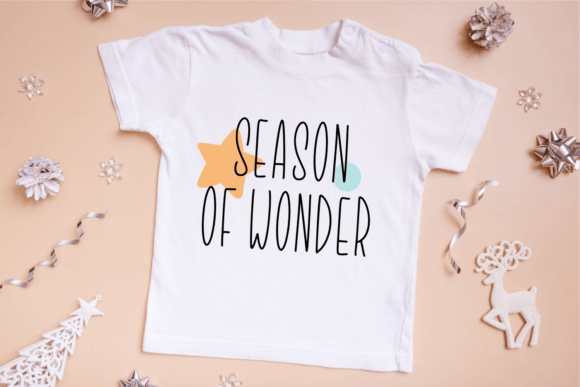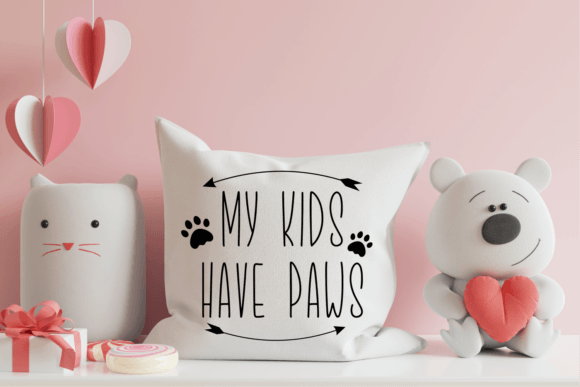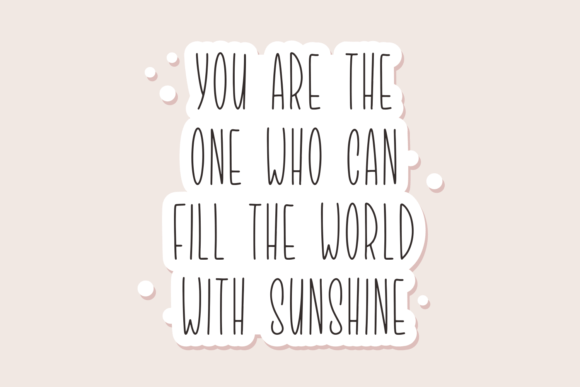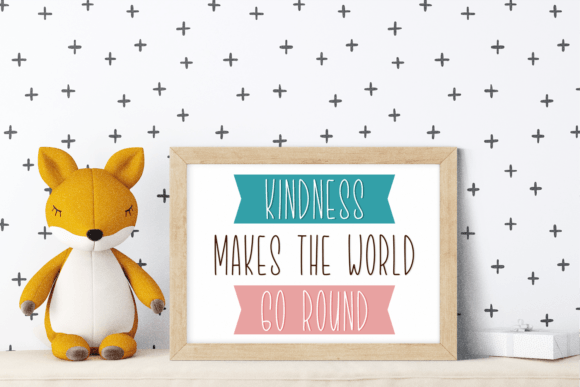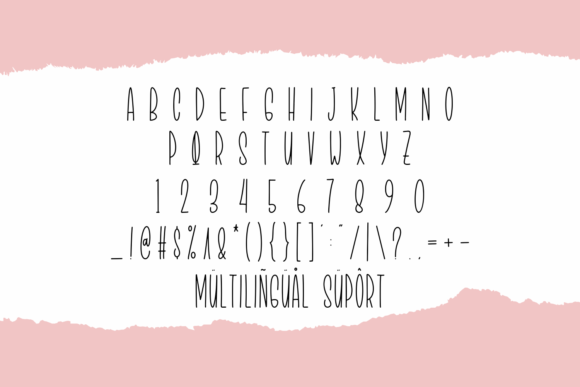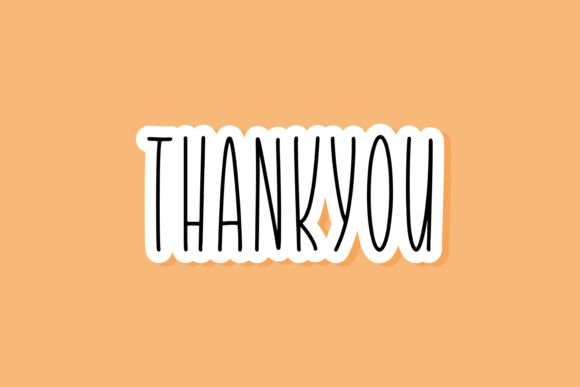
Starkido Font
A Slim, Cute, and Adaptable Handwritten Typeface
Starkido Font is a slim, cute, and adaptable handwritten typeface designed to bring a personalized and charming touch to a wide range of creative projects. Whether you’re designing farmhouse decor, greeting cards, stickers, or social media content, this font ensures your designs have a stylish, approachable feel. With its playful and elegant design, the Starkido Font helps elevate your projects with a unique, handwritten flair that suits both formal and informal occasions.
Perfect for Farmhouse Decor and Crafts
For farmhouse decor and craft projects, the Starkido Font is a wonderful choice. Whether you’re designing wall art, home decor pieces, or DIY crafts, this font adds a charming, welcoming touch to your designs. Its slim handwritten style and clean lines ensure that your home decor projects look elegant yet approachable, bringing a personalized flair to any space. The Starkido Font is perfect for creating quotes or slogans that add character and warmth to your home decor.
Ideal for Greeting Cards and Invitations
For greeting cards and invitations, the Starkido Font adds a playful, cute touch that’s ideal for birthdays, holidays, weddings, or other special occasions. Whether you’re creating thank-you cards, birthday invitations, or holiday greeting cards, this font’s charming and slim design brings a personalized feel to any occasion. Its adaptable nature ensures it can easily match a variety of themes, from modern to rustic or vintage. The Starkido Font helps you craft greeting cards that feel both elegant and heartfelt.
Great for T-shirt Designs and Stickers
For t-shirt designs and stickers, the Starkido Font is a fantastic option. Its cute and slim design ensures that your text stands out with a bold, yet charming appeal. Whether you’re creating custom t-shirts, mugs, or stickers, this font helps you design fun, memorable pieces that reflect your creative style. The Starkido Font adds a personalized touch to your merchandise, making it perfect for gifts, promotional products, or craft projects. Its playful handwritten style is ideal for adding an artistic and whimsical vibe to your products.
Ideal for Social Media Content and Branding
For social media content and branding, the Starkido Font brings a fun, charming element to your designs. Whether you’re creating Instagram posts, Pinterest graphics, or Facebook ads, this font gives your content a unique, personalized appeal that captures attention. Perfect for social media quotes, promotional posts, or event graphics, the Starkido Font ensures that your designs stand out with a fresh, approachable feel. Its slim yet elegant style makes it ideal for brands that want to convey a warm, inviting, and playful tone.
Versatile, Legible, and Stylish
Despite its slim and delicate handwritten design, the Starkido Font remains legible and easy to use. The well-spaced characters and consistent strokes ensure that your text is clear and readable, even for longer passages or smaller sizes. Whether you’re using it for headlines, captions, or body text, this font strikes the perfect balance between creativity and readability, making it suitable for a wide range of design applications, from print to digital media.
Add Charm and Playfulness to Your Designs with Starkido Font
If you’re looking for a cute, slim handwritten font that adds a playful, charming touch to your designs, the Starkido Font is the perfect choice. Whether you’re designing greeting cards, stickers, social media content, or home decor, this font will help you create memorable, personalized designs that stand out. Let the Starkido Font bring a fun, elegant touch to your creative projects and leave a lasting impression with its charming and stylish appeal.